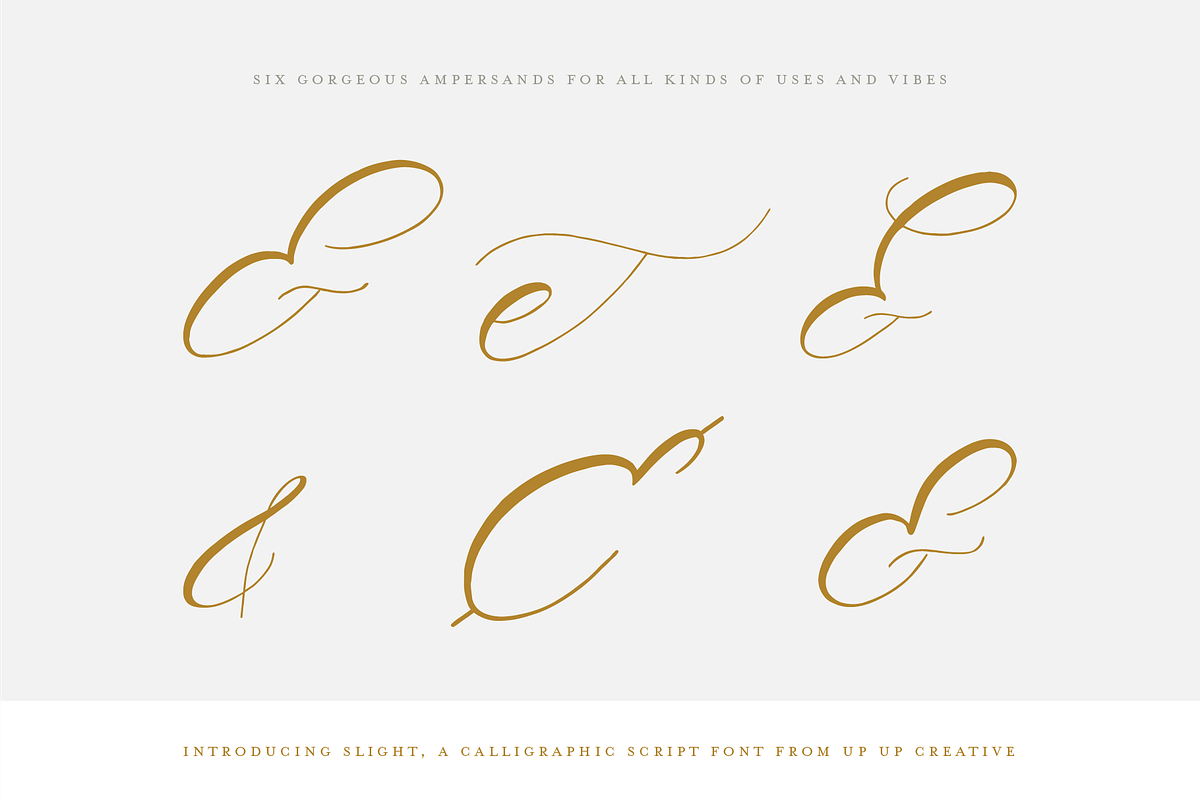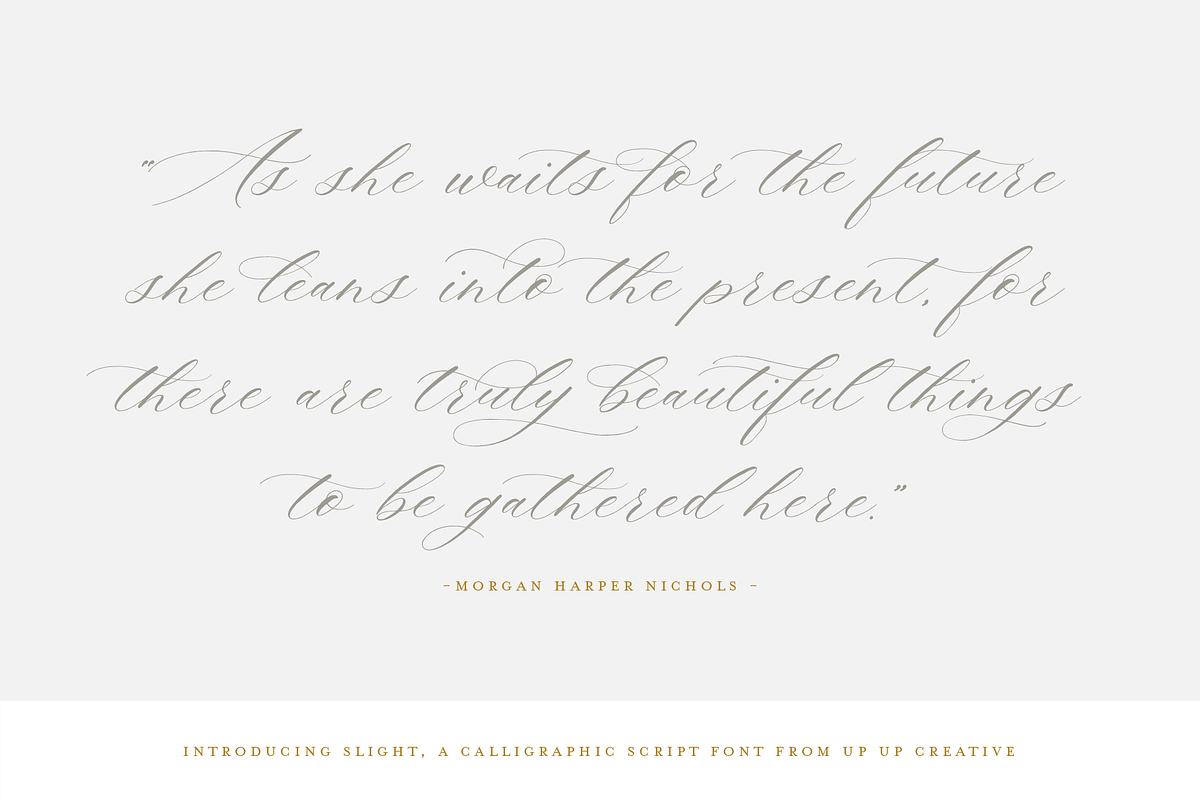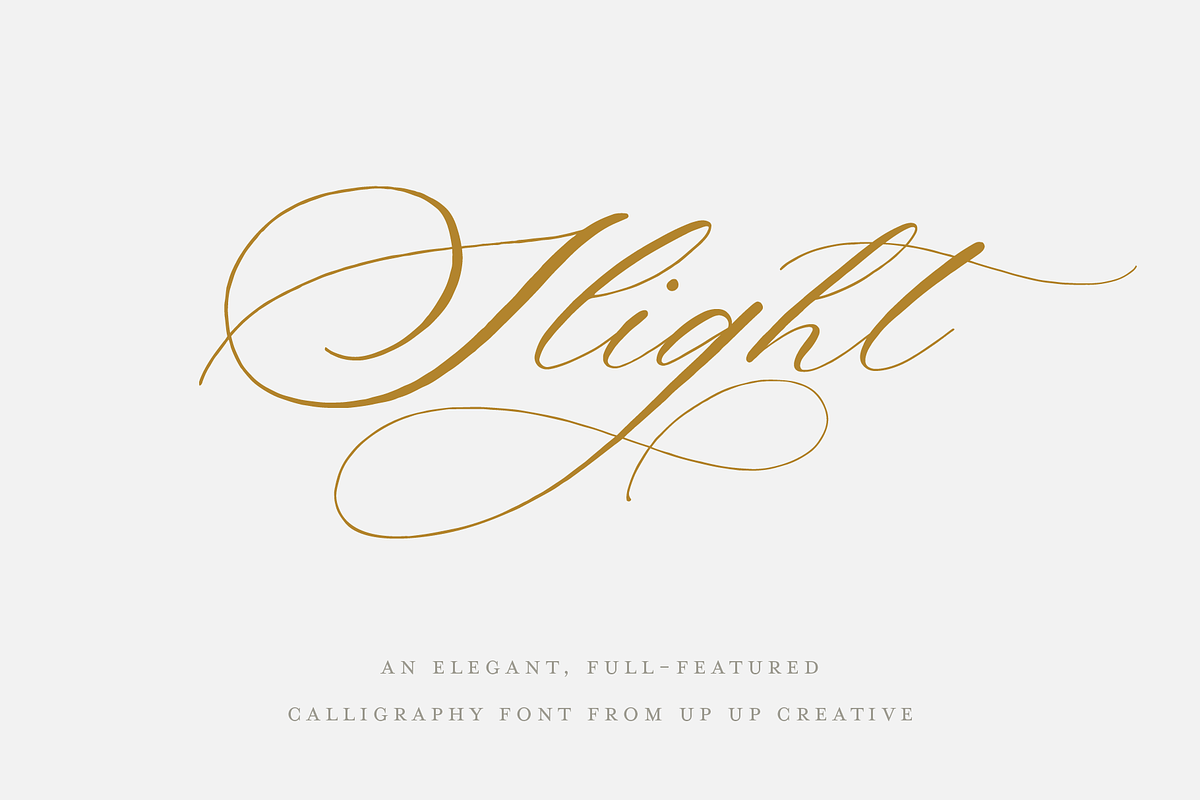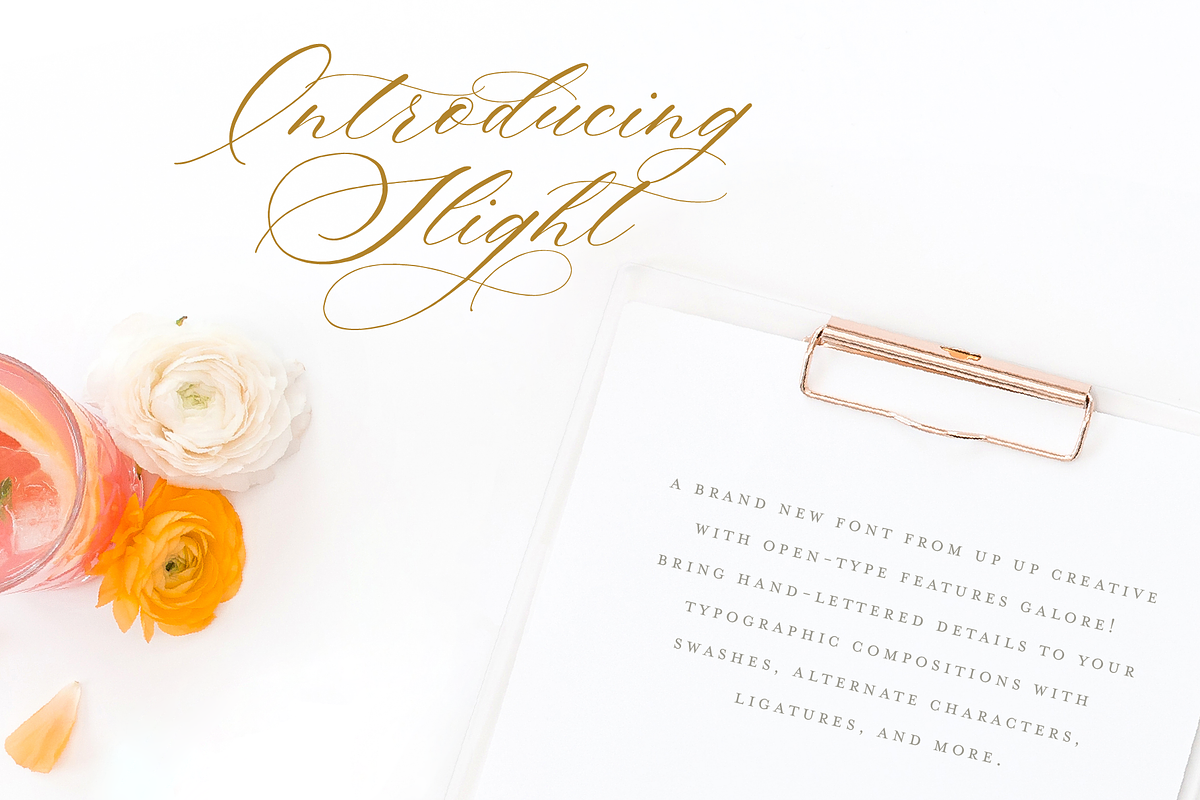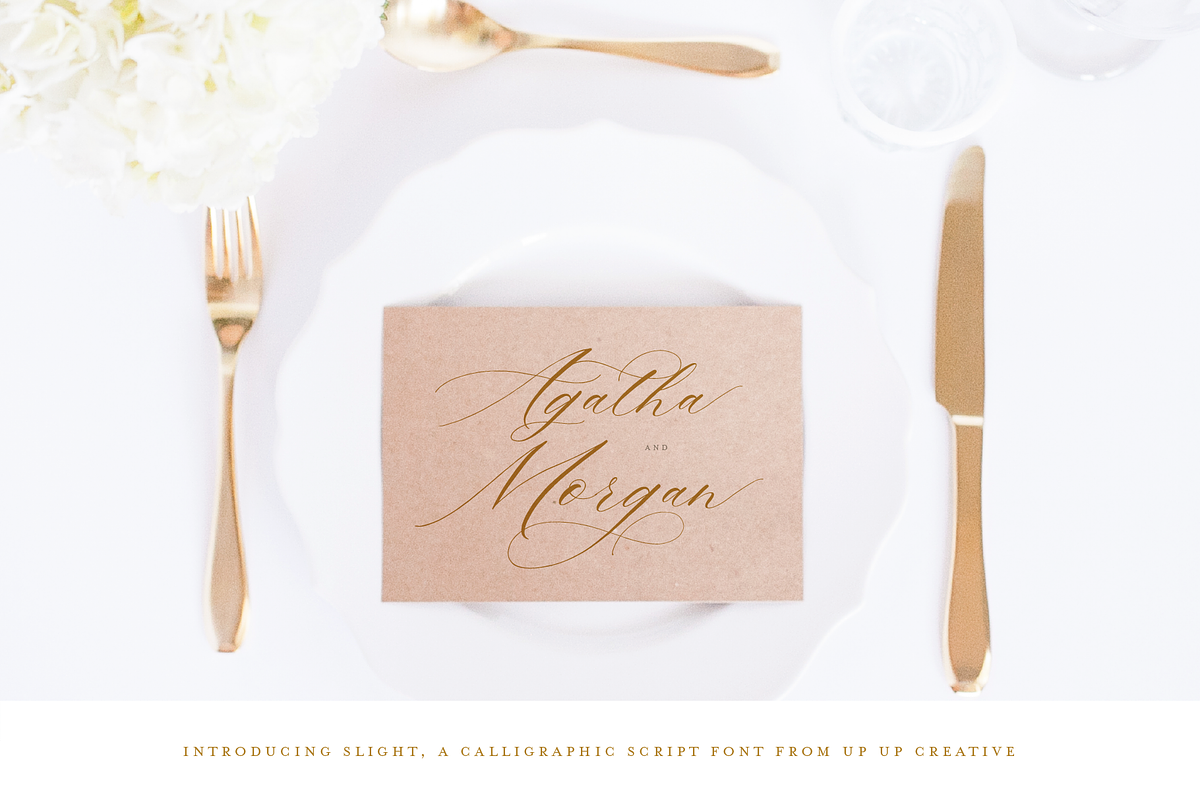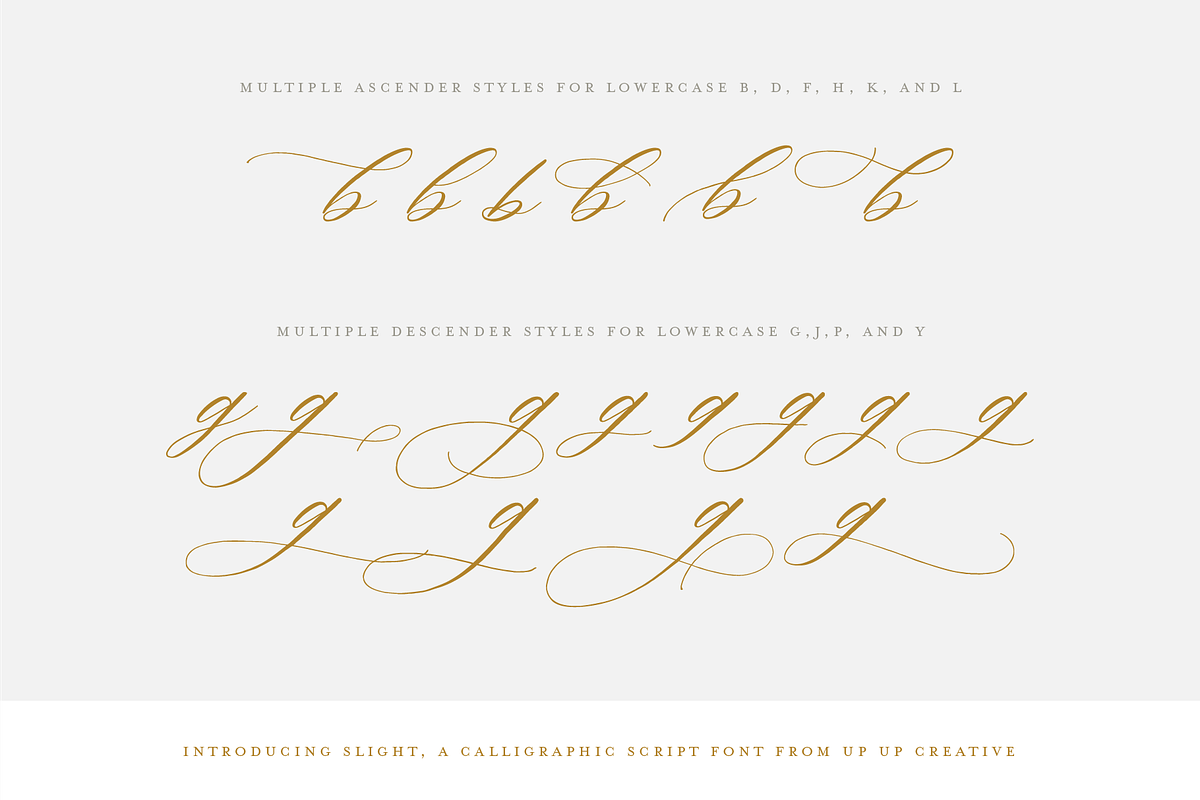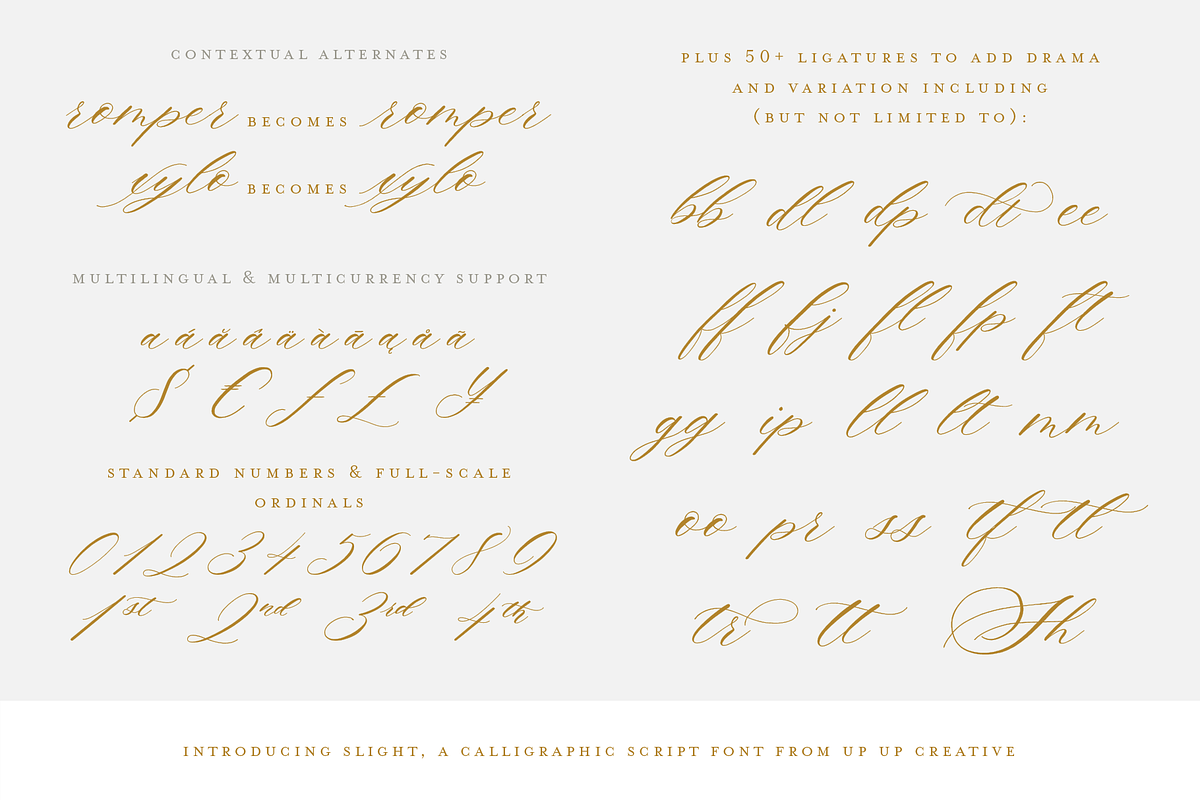
Slight, A Calligraphy Font
Introducing Slight, an elegant, full-featured script font with tons of alternate characters and OpenType features. Hand-lettered with a heavy right slant, Slight is particularly well-suited to invitations, branding, and editorial design.
Slight comes with more than 1000 glyphs! Specific OpenType features include contextual alternates, stylistic alternates, initial and final forms, multiple alternate glyphs for many letters (accessed through the glyphs panel), multilingual support (including multiple currency symbols), ligatures, standard numbers, and six ampersand styles. Perhaps the most fun thing about Slight is that it includes multiple versions of all ascending and descending letters, making it lots of fun to play with layouts and compositions.